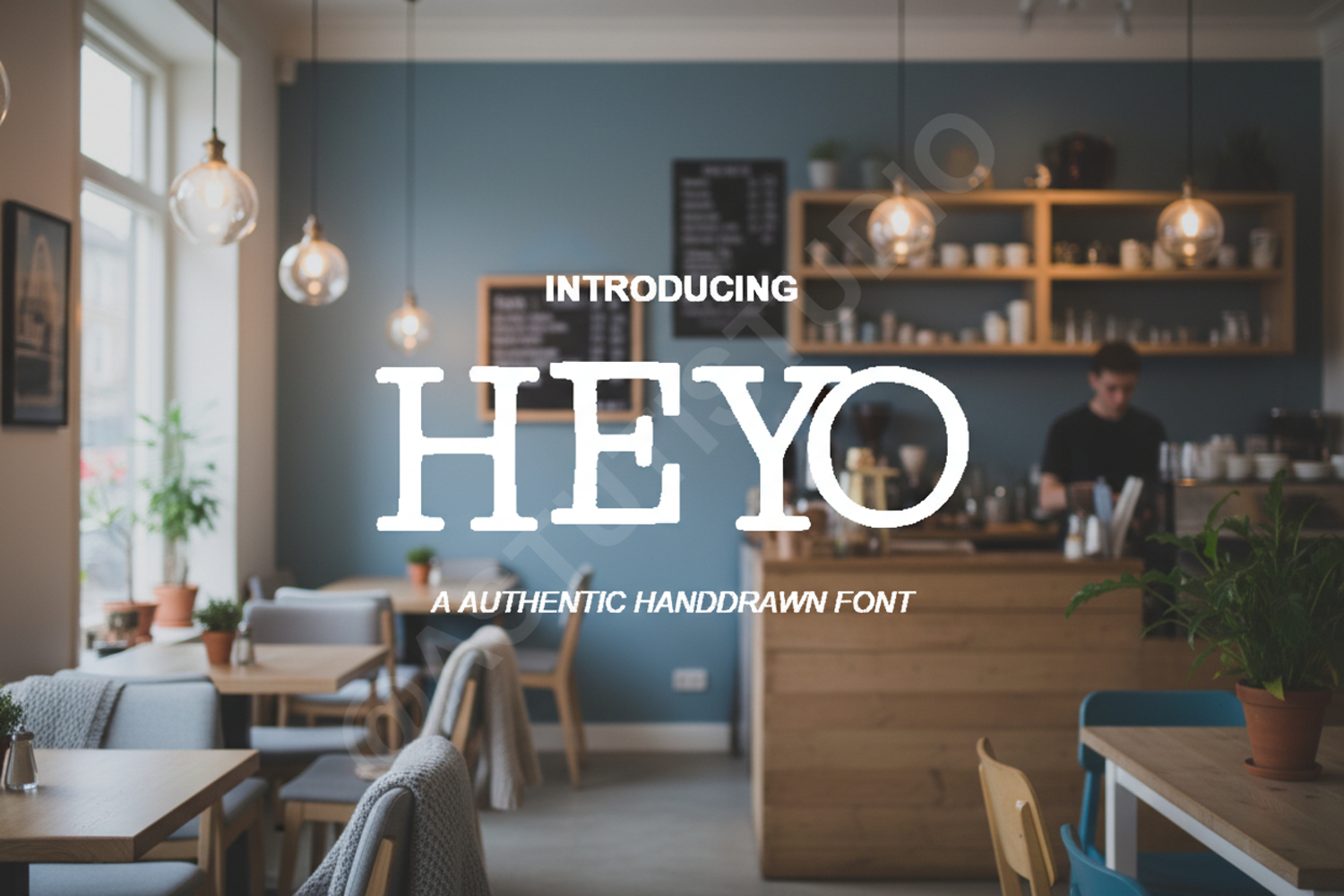
Heyo - Modern & Playful Sans Serif Typeface
Heyo
Elevate your creative projects with Heyo, a premium sans serif font designed for modern designers who value both style and functionality. Heyo balances a playful character with a clean, professional structure, making it a versatile choice for a wide range of aesthetic needs. Whether you are building a brand from scratch or adding a fresh touch to an existing layout, Heyo delivers exceptional clarity and a contemporary feel.
- Full character set including uppercase, lowercase, numbers, and punctuation
- Multi-language support for global accessibility
- Branding and Identity: Create memorable logos and cohesive brand guidelines.
- Social Media Graphics: Perfect for eye-catching Instagram posts, Pinterest pins, and YouTube thumbnails.
- Web Design: Clean lines ensure high readability for headers and body text.
- Print Media: Ideal for posters, business cards, and editorial layouts.
- Merchandise: Great for t-shirt designs, packaging, and lifestyle products.